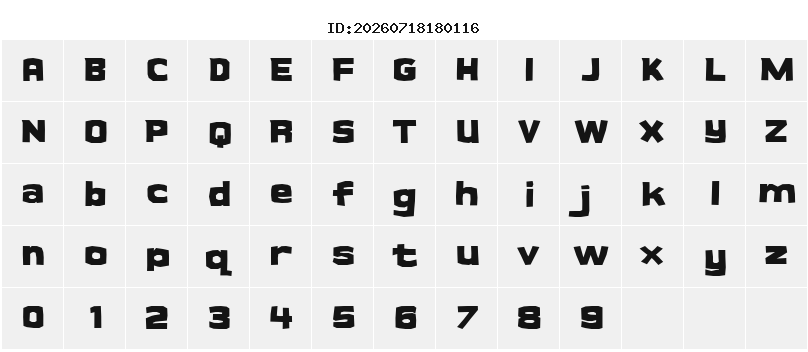
• Font Name: Cueva
• Font Style: Thick
• Font ID: Altsys Fontographer 4.0 Cueva Thick
• Full Font Name: Cueva Thick
• Version: Altsys Fontographer 4.0 29/9/2000
• PostScript Name: CuevaThick
• Character Count: 243
About Cueva.ttf
Cueva.ttf is a modern, elegant sans-serif font designed for ultimate readability and visual harmony. Perfect for branding, headlines, web design, and print materials.